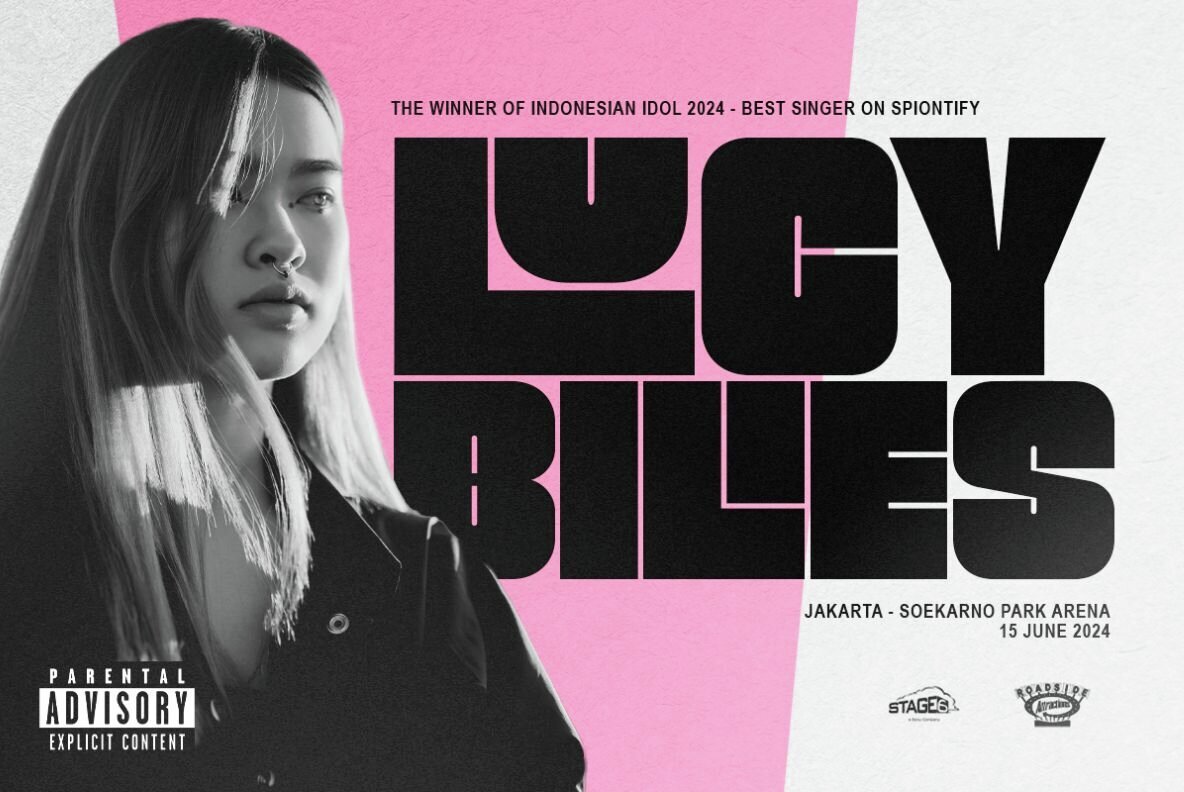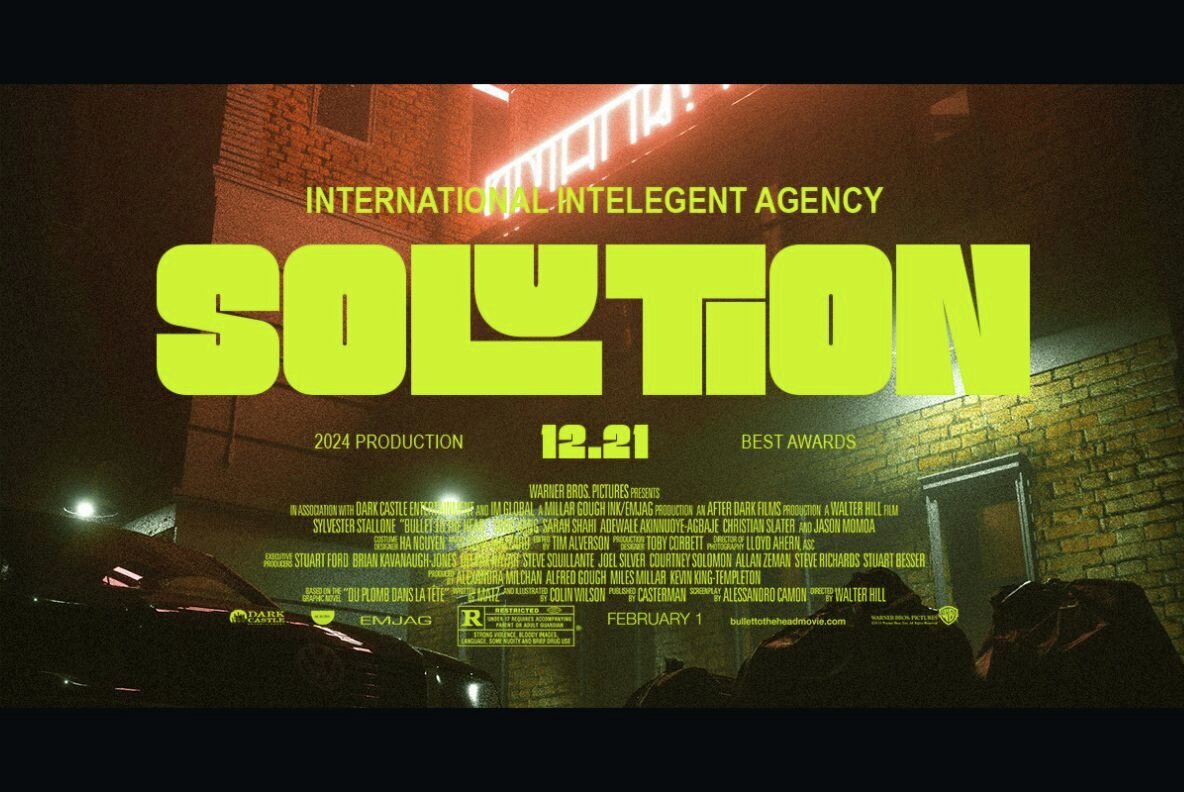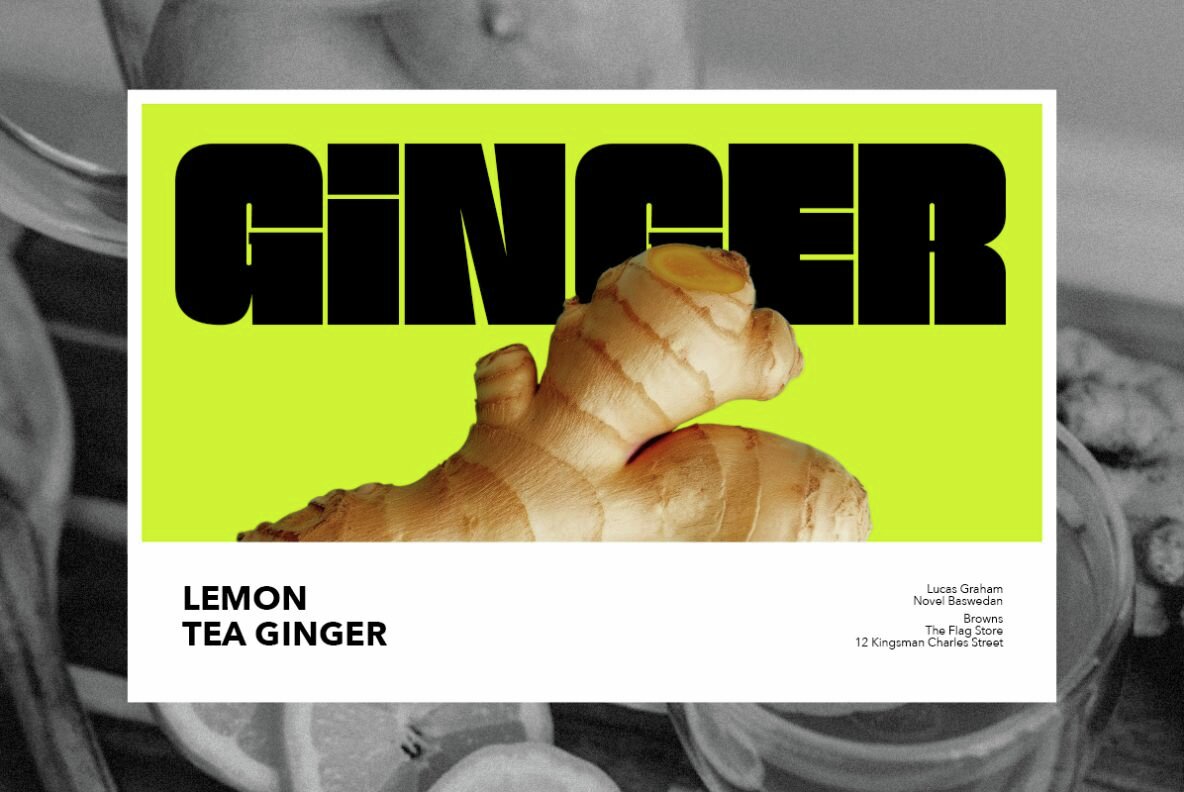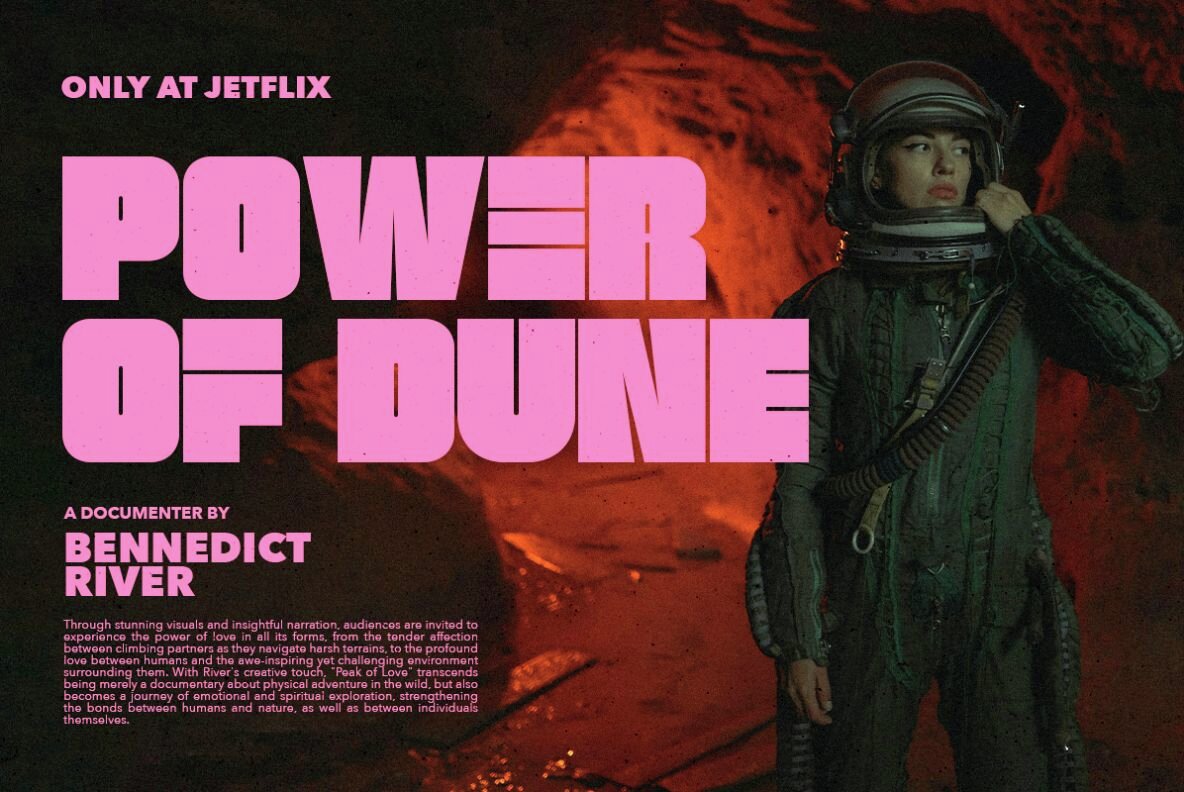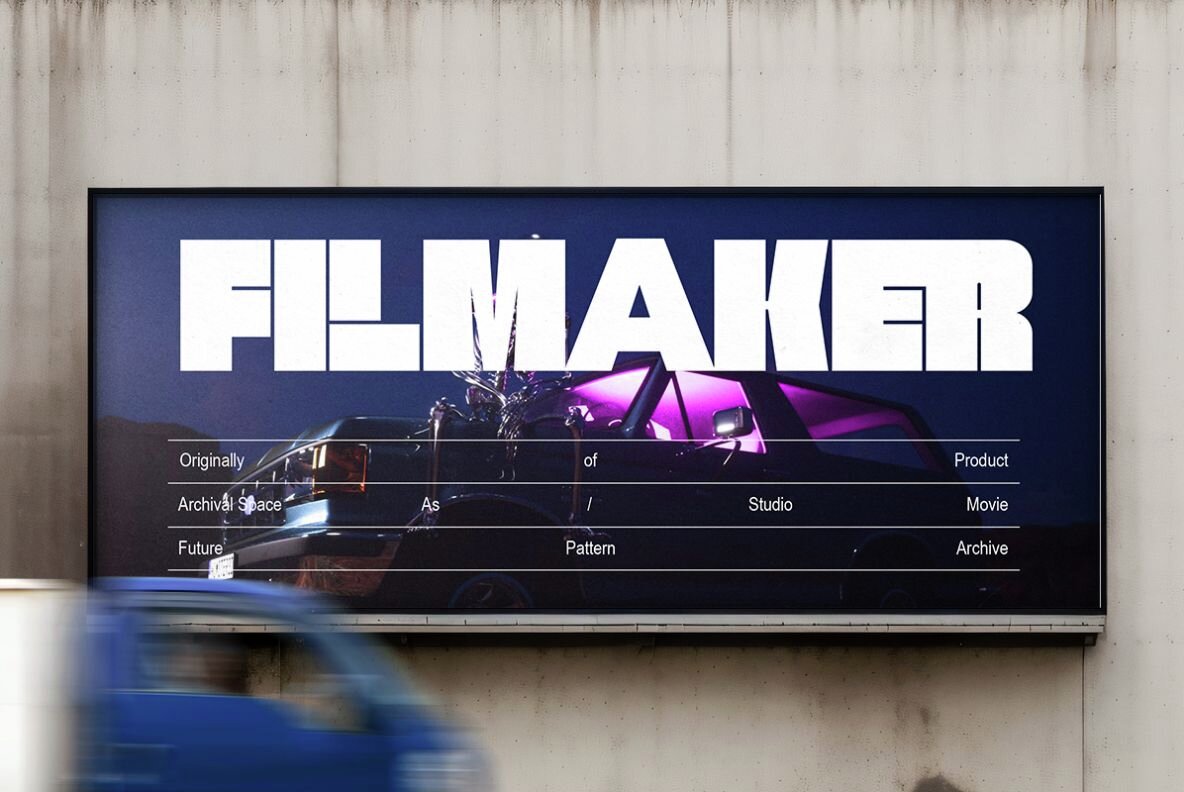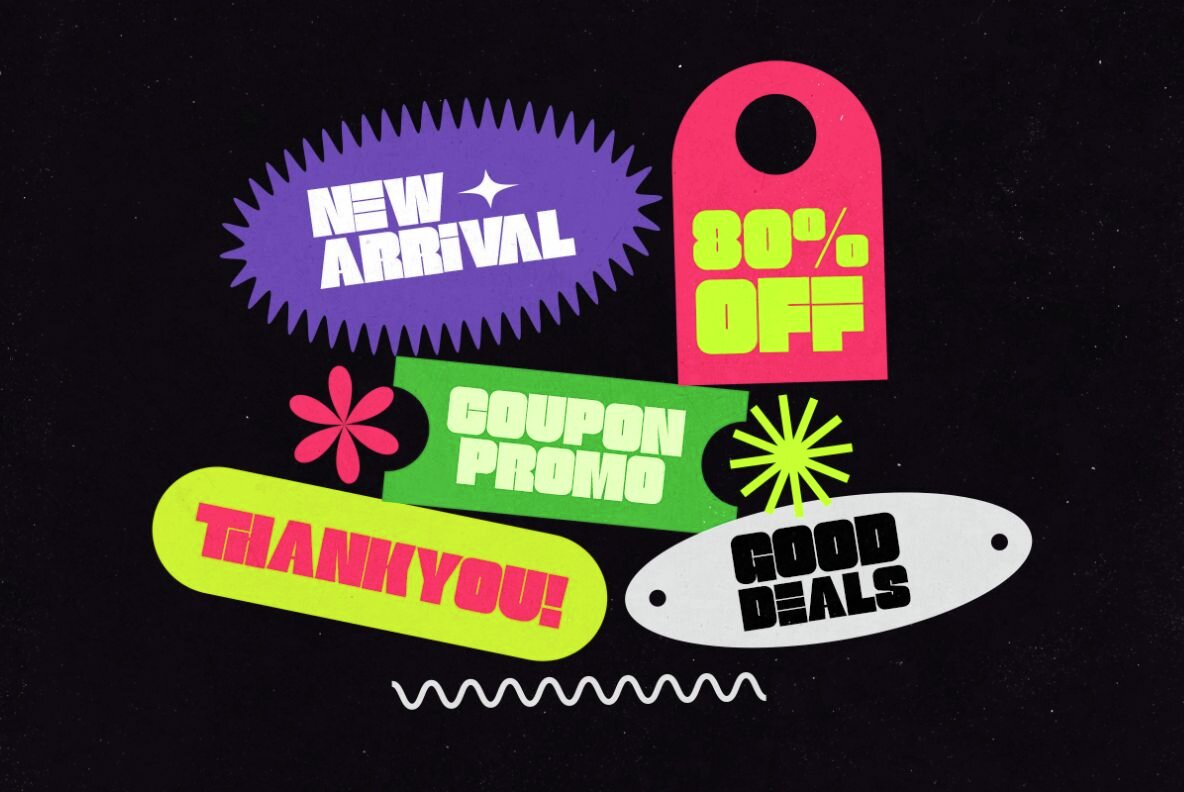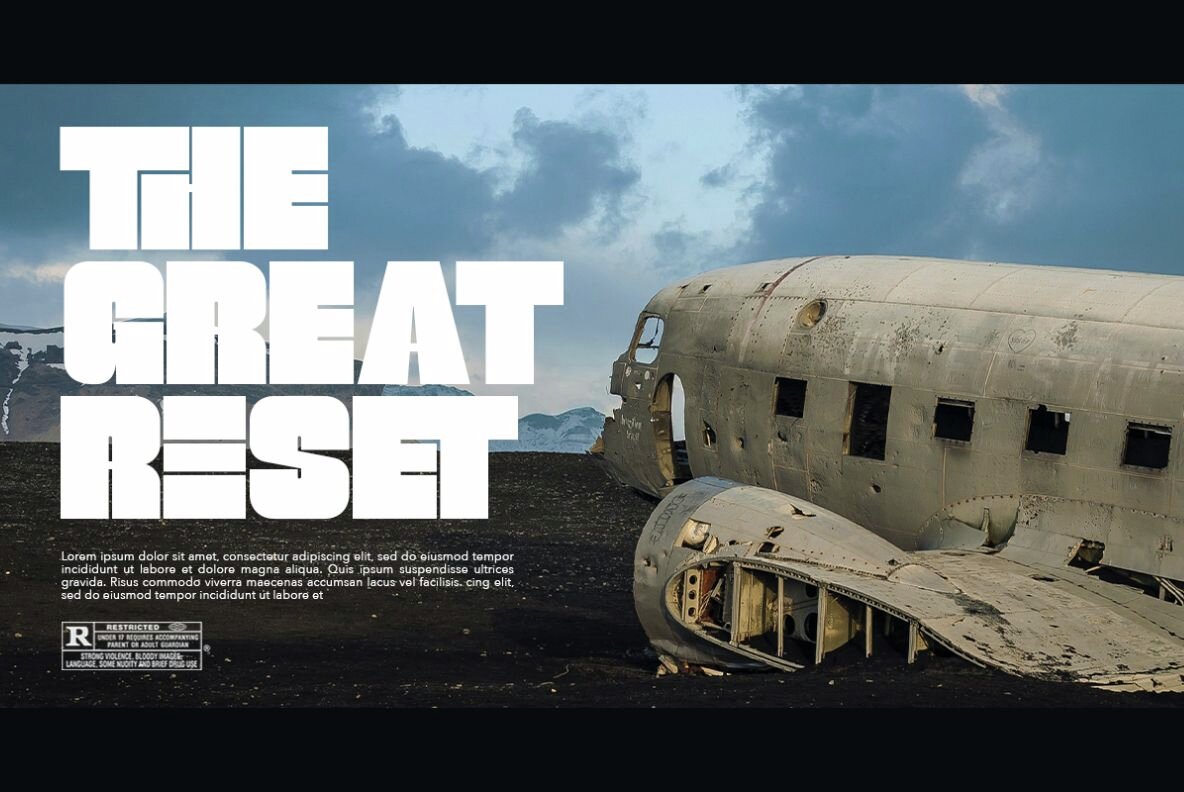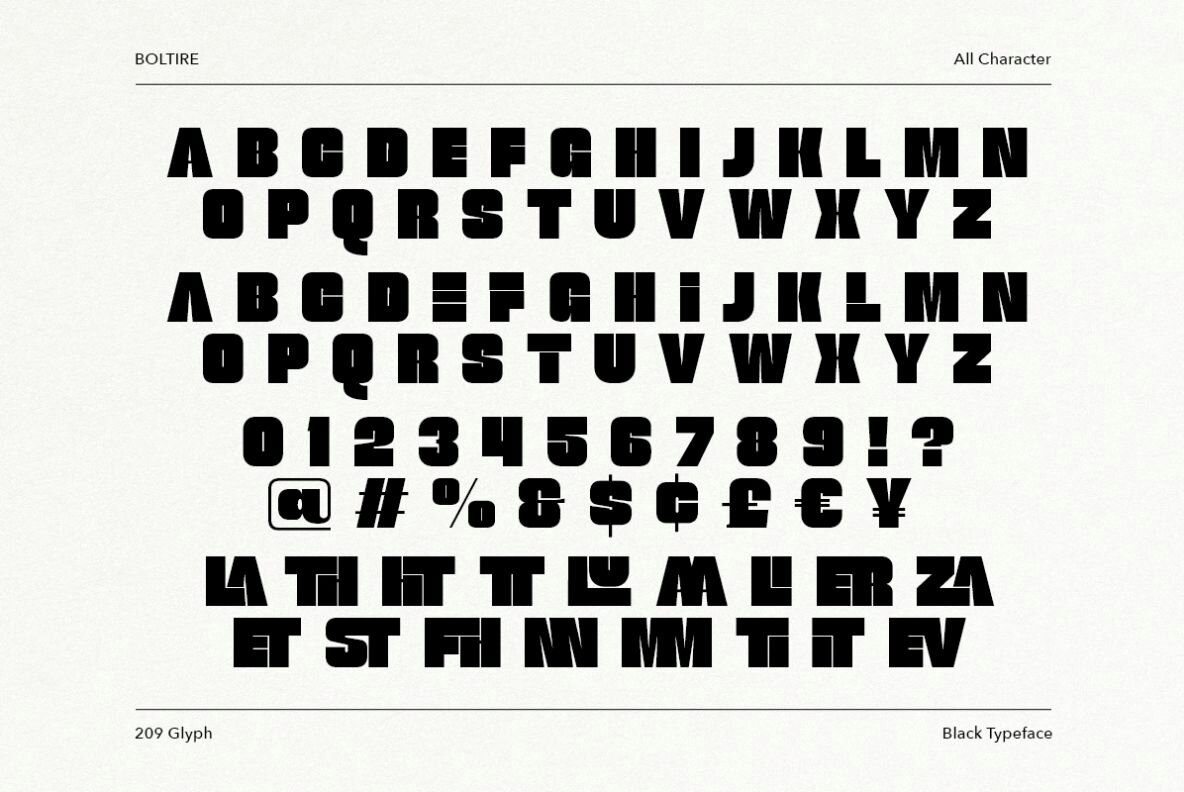
Boltire Font
Boltire Regular
Boltire is a robust, all-caps bold font designed to make a powerful statement. Ideal for headlines, posters, quotes, and logotypes, its strong presence ensures your message stands out. The unique lowercase and ligature options allow you to create visually engaging and dynamic designs.
This versatile typeface also supports multiple languages, making it a great choice for diverse projects. With Boltire, you'll have the tools to craft impactful, attention-grabbing designs that communicate your message effectively.